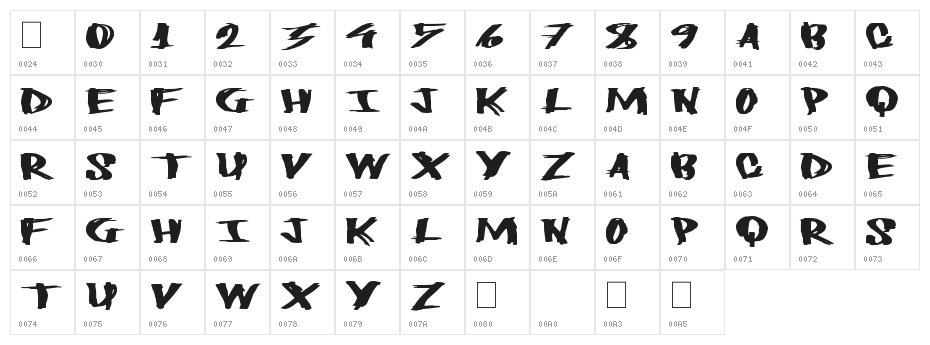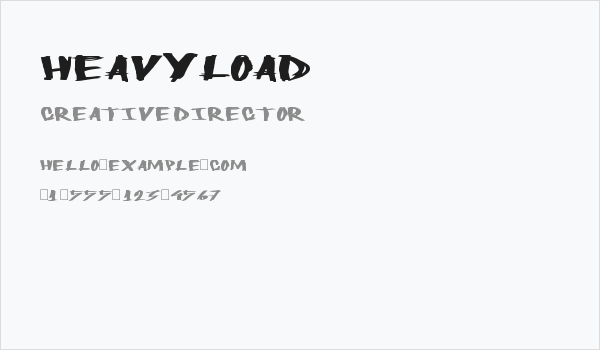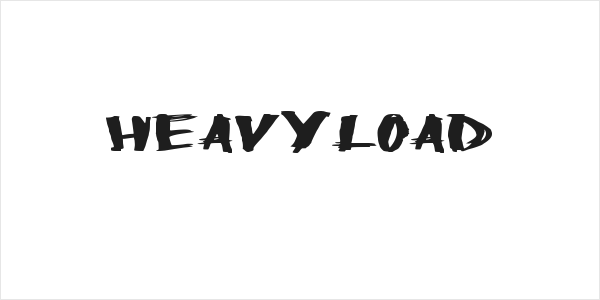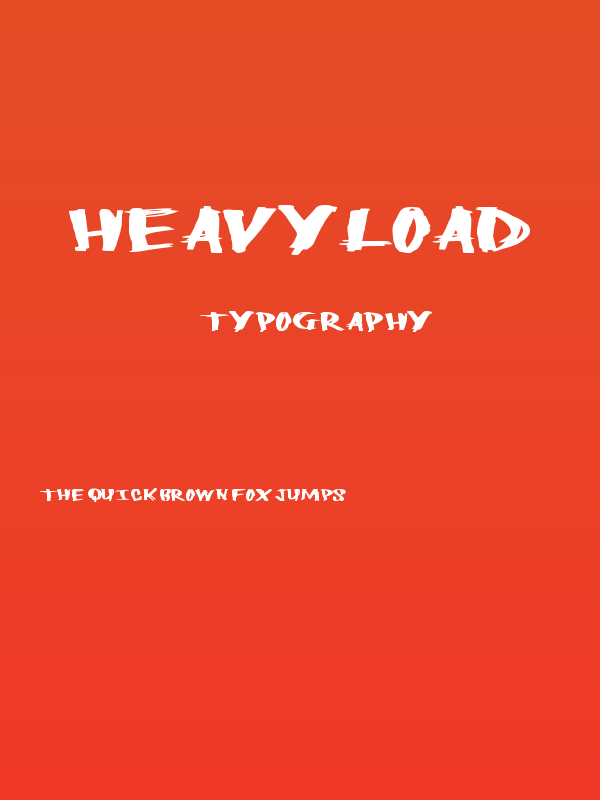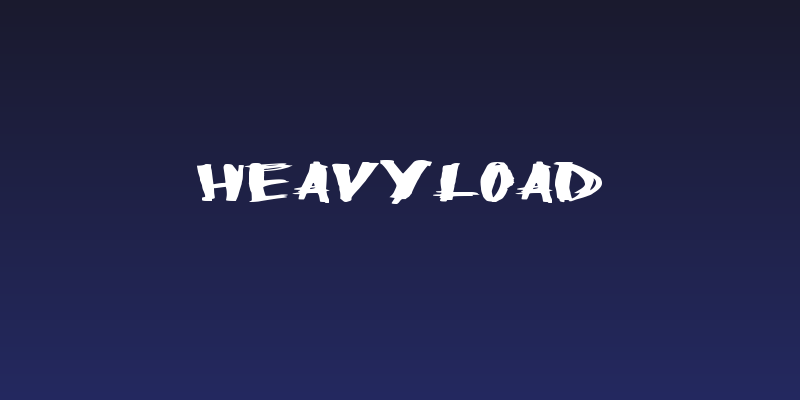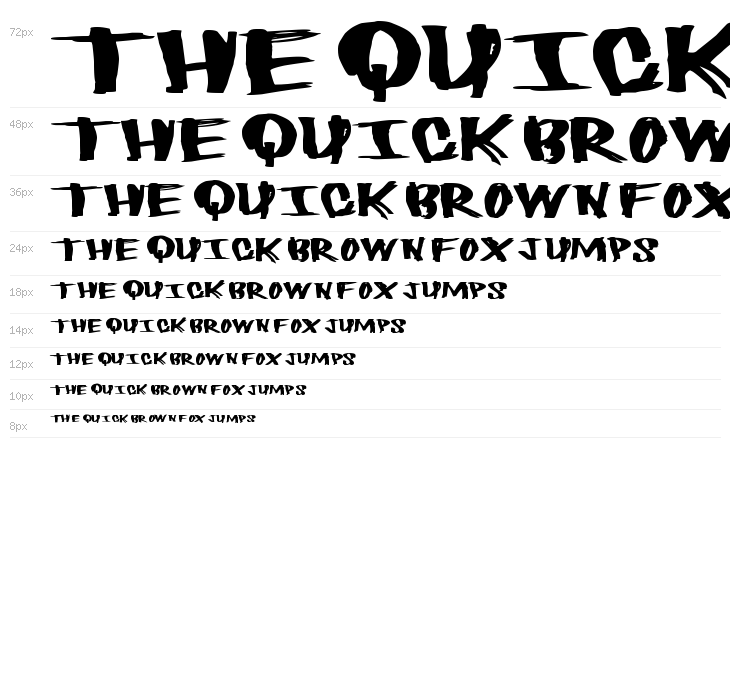
HeavyLoad Font
HeavyLoad Description
This font exhibits a bold and dynamic style, characterized by its brush-like strokes and energetic appearance. The letters are crafted with a sense of movement, giving them a slightly chaotic yet artistic flair. Each character is unique, with varying thicknesses and angles, contributing to a sense of spontaneity and creativity. The uppercase and lowercase letters maintain a consistent style, while the numerals and special characters follow the same energetic theme. This font is ideal for projects that require a strong visual impact and a touch of artistic expression.
| Proposed Projects | Ideal for posters, album covers, graffiti art, and branding that requires a bold statement. |